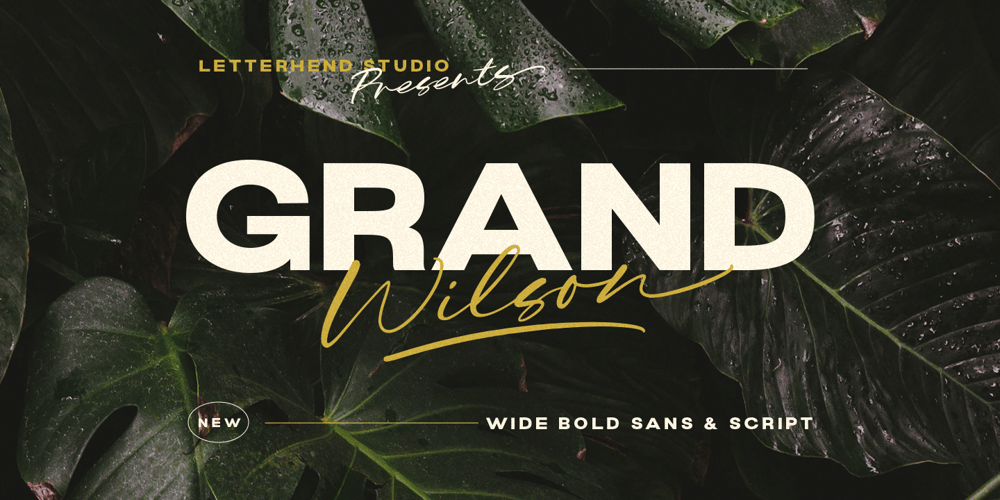
Grand Wilson Font Family was designed by Hendry Juanda and published by Letterhend. Grand Wilson contains 2 styles and family package options. Introducing, Grand Wilson, a pair of font that brings the modern and casual feel in the same time. The Bold sans combined with the natural hand writing script are the perfect match for you who needs a typeface for headline, logotype, apparel, invitation, branding, packaging, advertising etc.Features : 2 fonts (bold sans and script font) uppercase & lowercase numbers and punctuation multilingual alternates & ligatures PUA encoded We highly recommend using a program that supports OpenType features and Glyphs panels like many of Adobe apps and Corel Draw, so you can see and access all Glyph variations.